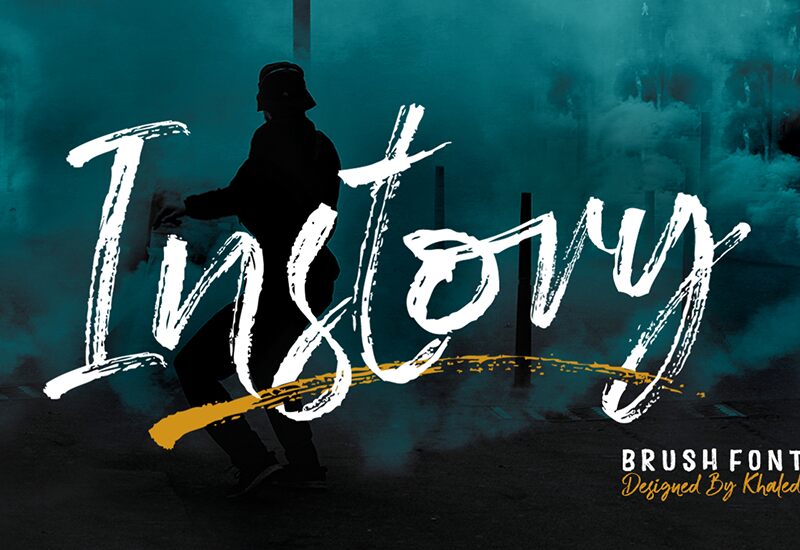
Instory, a captivating brush font by Akifatype Studio, injects elegance and authenticity into every character. With its semi-light weight and semi-condensed width, this font radiates a delicate grace that beautifully complements any project it graces.
Perfect for book covers and titles, Instory adds a touch of artistic flair to novels and memoirs. Its flowing strokes also make it ideal for wedding invitations, creating an enchanting atmosphere for the big day. For blog headers or social media graphics, Instory brings an air of sophistication that effortlessly captures attention.
Let your imagination run wild with Instory's versatile charm.
Instory
Akifatype Studio